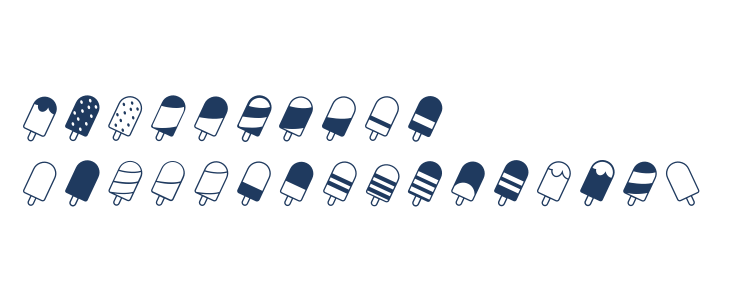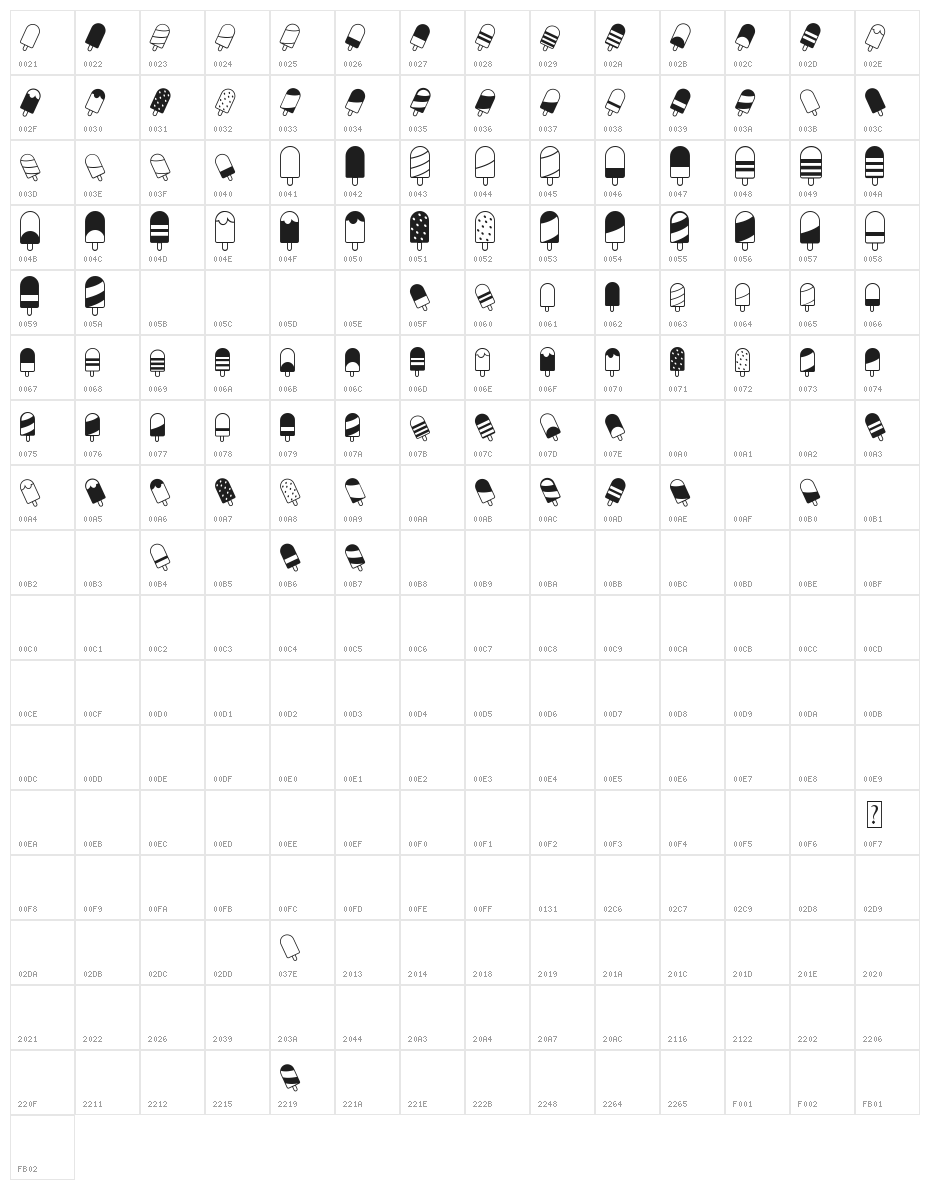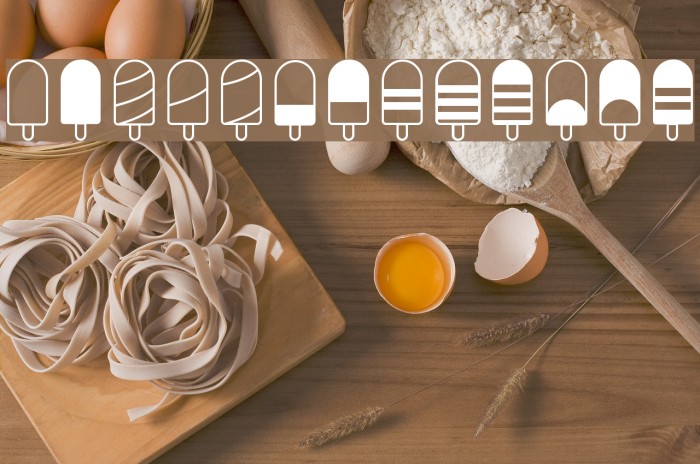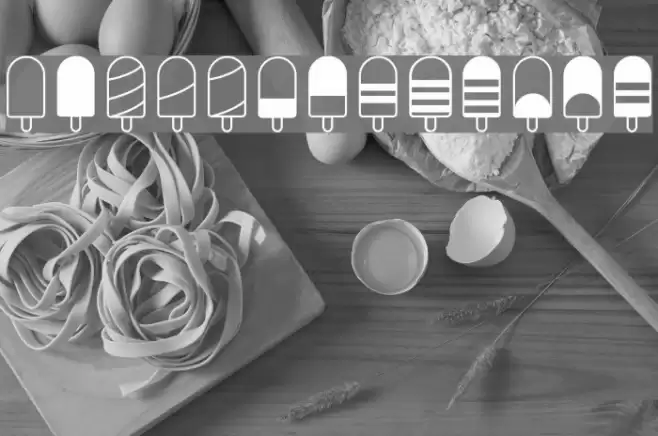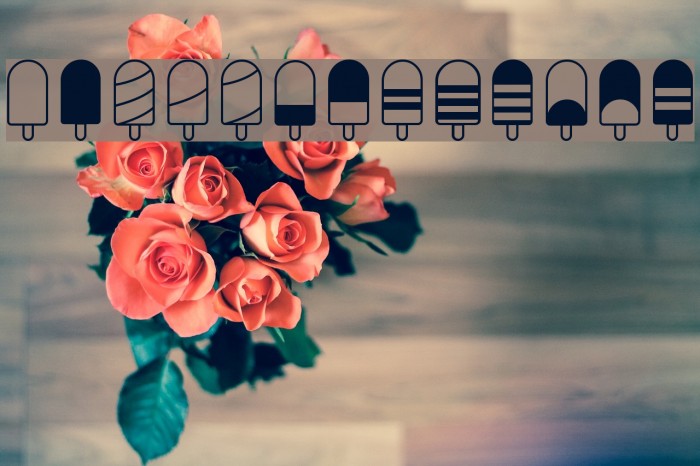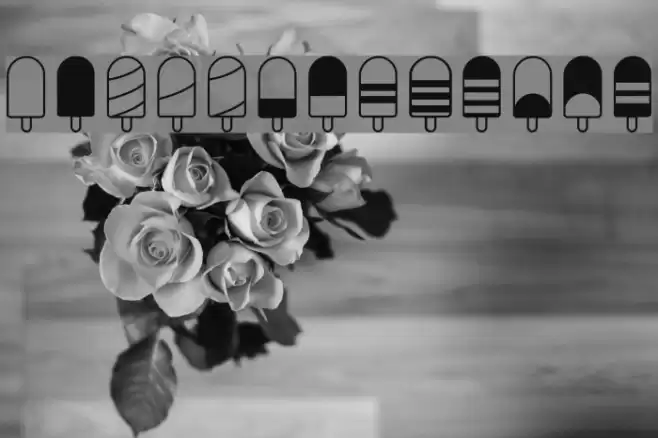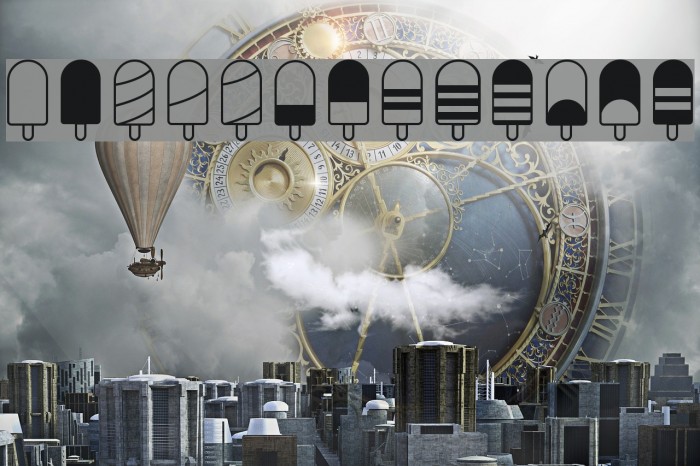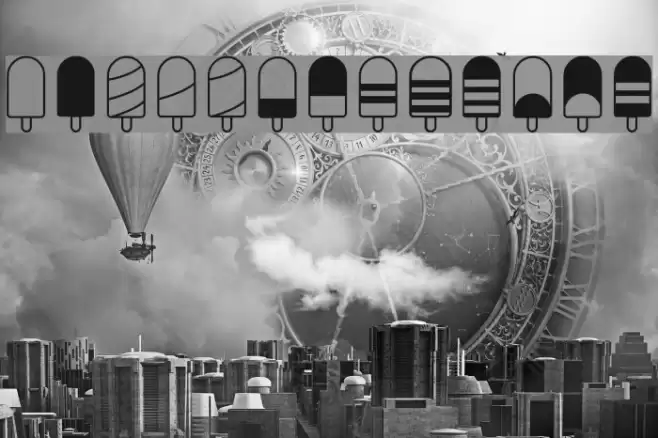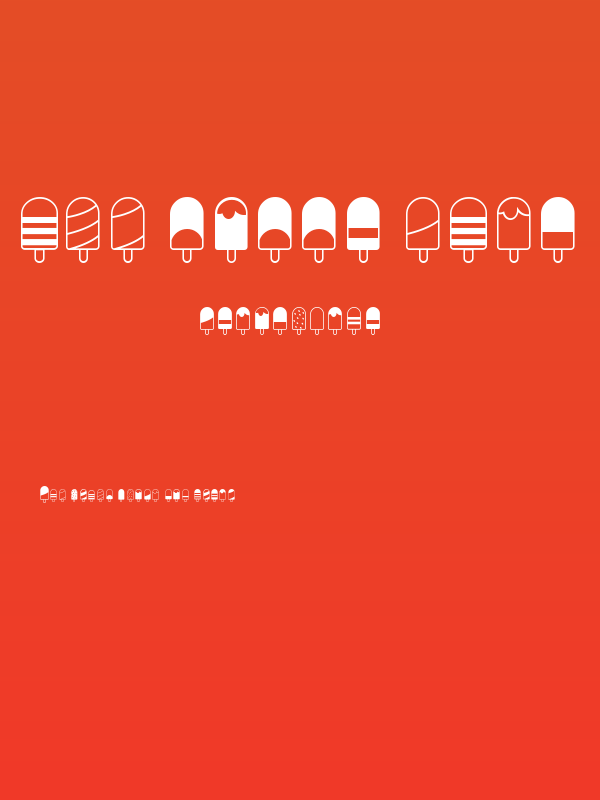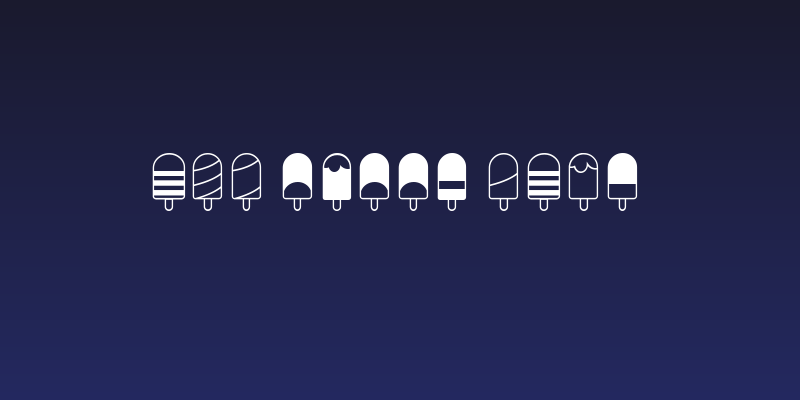
Ice Lolly Ding Font
Ice Lolly Ding Description
A playful, decorative font where each character is represented by a unique ice lolly or popsicle icon, featuring a variety of patterns such as stripes, sprinkles, and dipped tops, all outlined in bold black lines with both filled and unfilled segments.
| Overall Style | Playful, Decorative, Whimsical |
| Use Case | Logos, Headlines, Posters, Themed graphics |
| Proposed Projects | ChildrenΓ’β¬β’s party invitations, summer event posters, playful branding, food packaging, educational materials. |